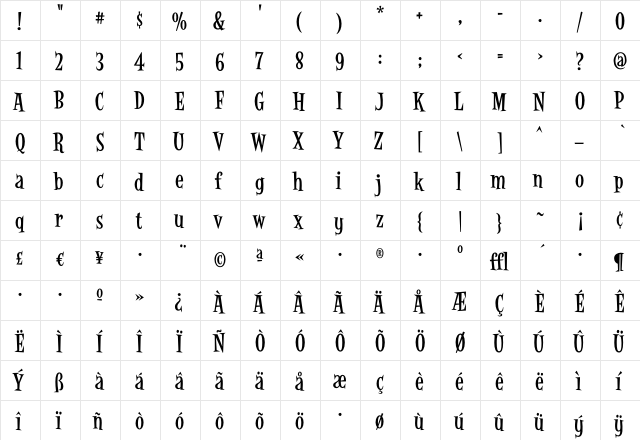
Latino Rumba
Design Context for Latino Typeface
Latino offers clean, dependable letterforms without strong stylistic allegiance, making it a practical choice for designers who need flexibility.
Pro Tip: Use Latino in both headline and body roles to test its range before committing to a single application.